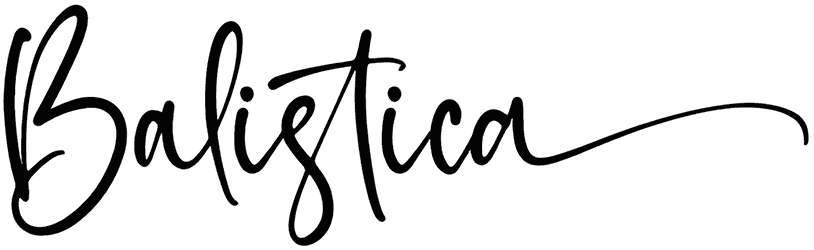
Balistica Font
Having a lovely script font, the same as Balistica is one of the main requirements for designing remarkable and sturdy editorial projects such as stickers, gift cards, packaging, social media posts, or applications.
Since it comes with a cursive style, it can easily provoke a vibe of delicacy, dynamism, vivacity, or personalization in the audience’s minds and immediately convince them to follow your work. Also, don’t forget to check out the RB collection for daily updates.